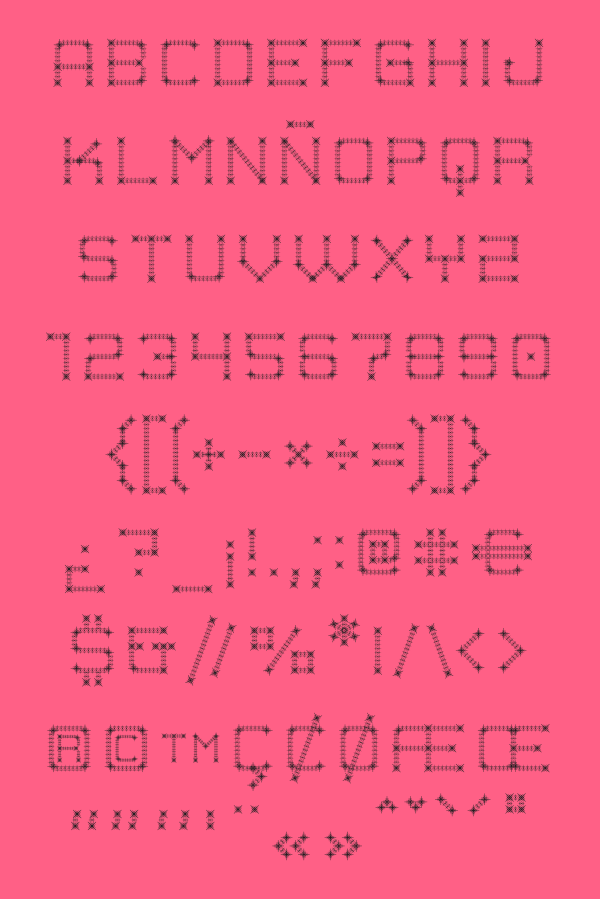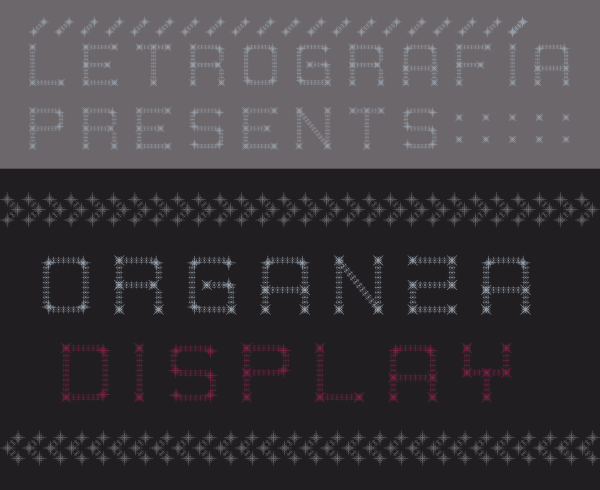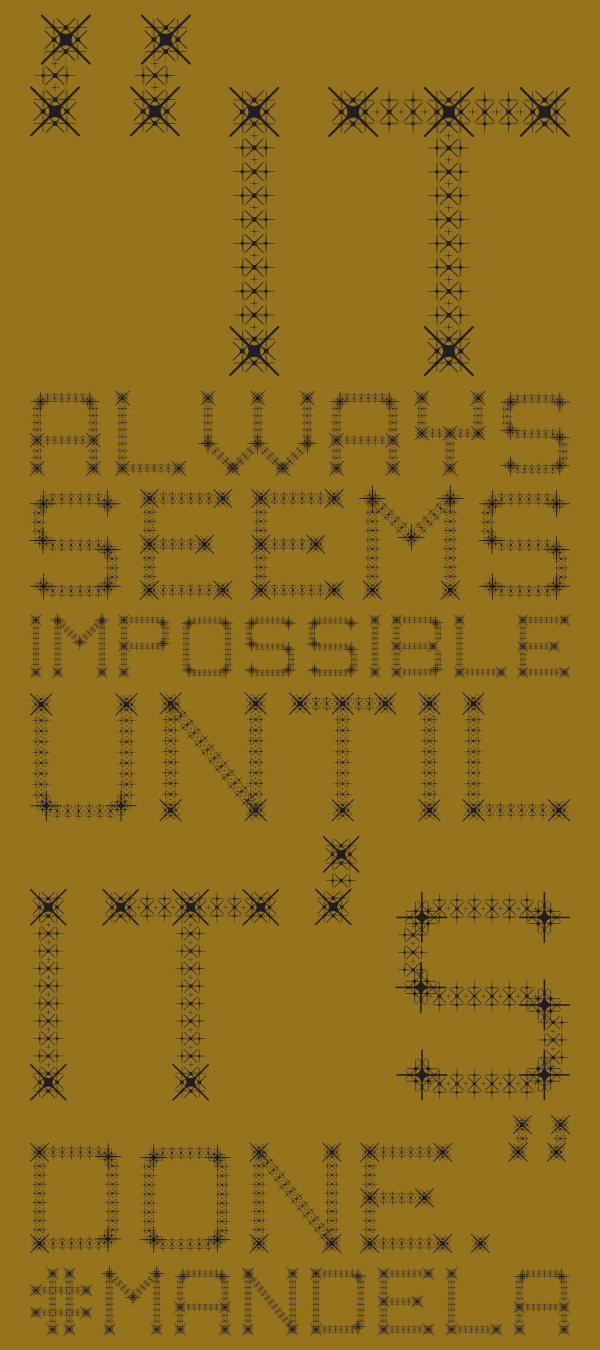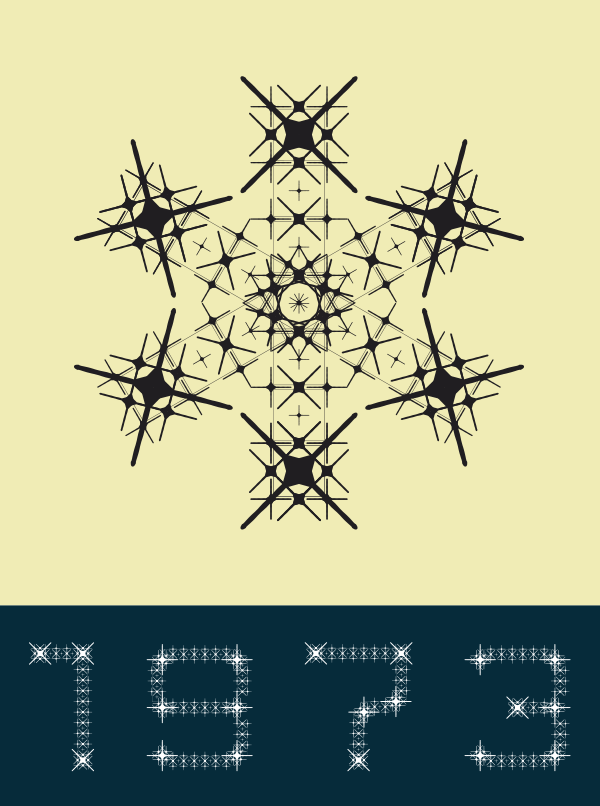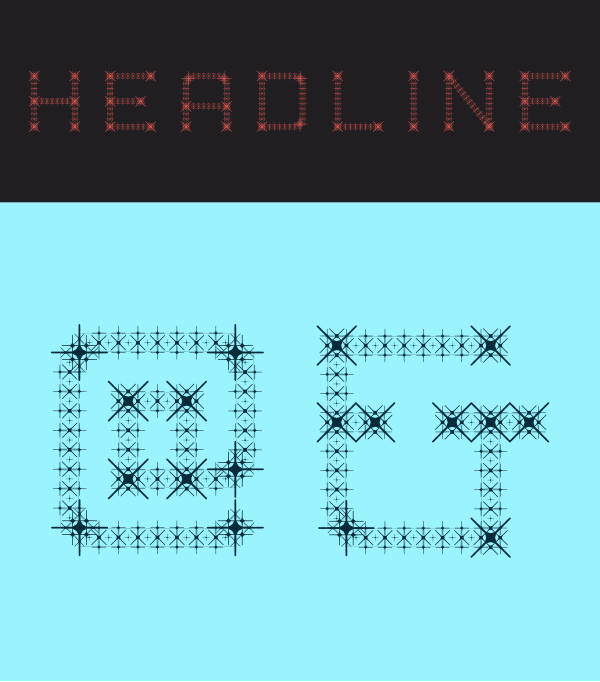
Organza
Organza Display is a vector font inspired in urban shapes. Conceived to be used in big formats due to its colossal detail, Organza Display is ideal for single words or short sentences. Additionally, its modular architecture reminds a woven fabric.